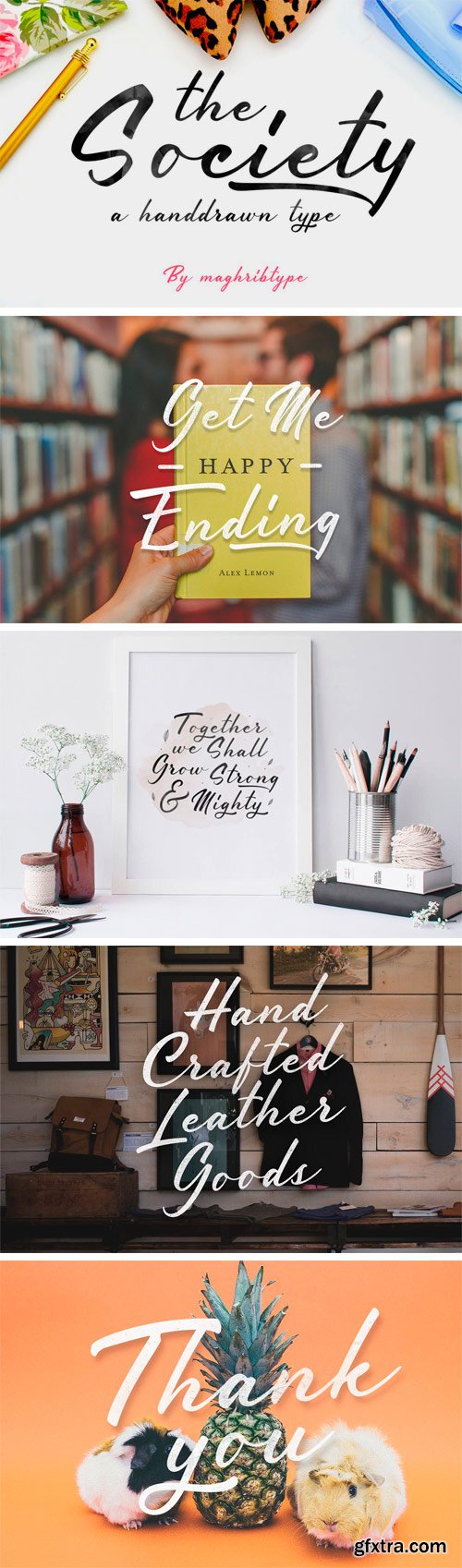
Society Font
Society typeface is hand painted typeface designed to help you create the look of stunning custom hand-lettering. Society typeface comes with upper and lowercase characters, punctuation, numerals,supports international languages and OpenType features with Stylistic Alternates, Society typeface is very best choice fonts for : ,quotes, Posters, Logos, Print Ads, Digital Ads, Promotion Product, video bumper, etc.Stylistic alternates for key lower case characters are also available, accessible in the Adobe Illustrator Glyphs panel, or under Stylistic Alternates in the Adobe Photoshop OpenType menu.